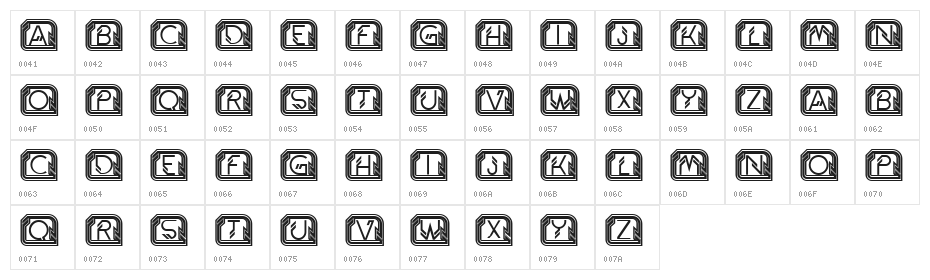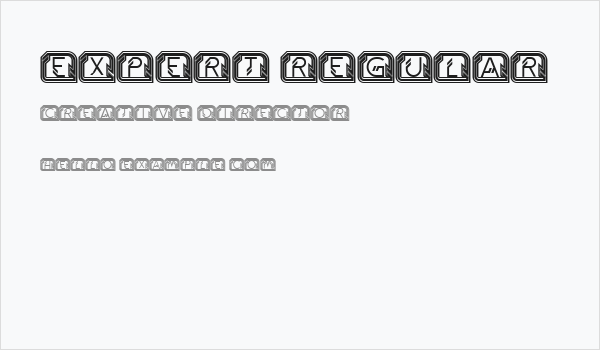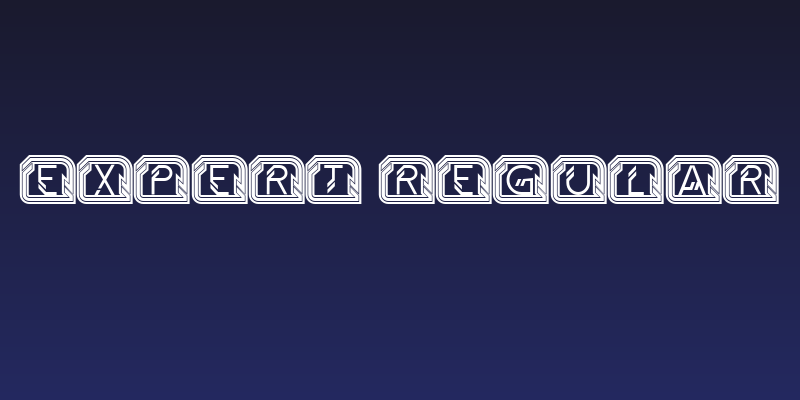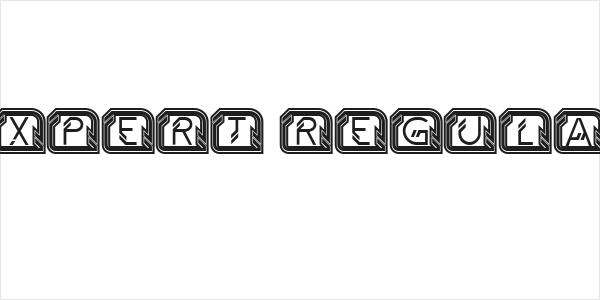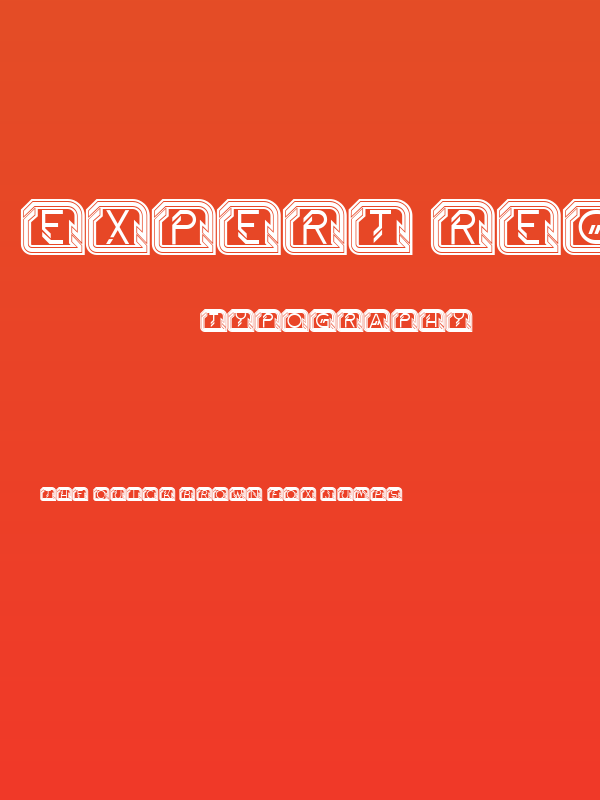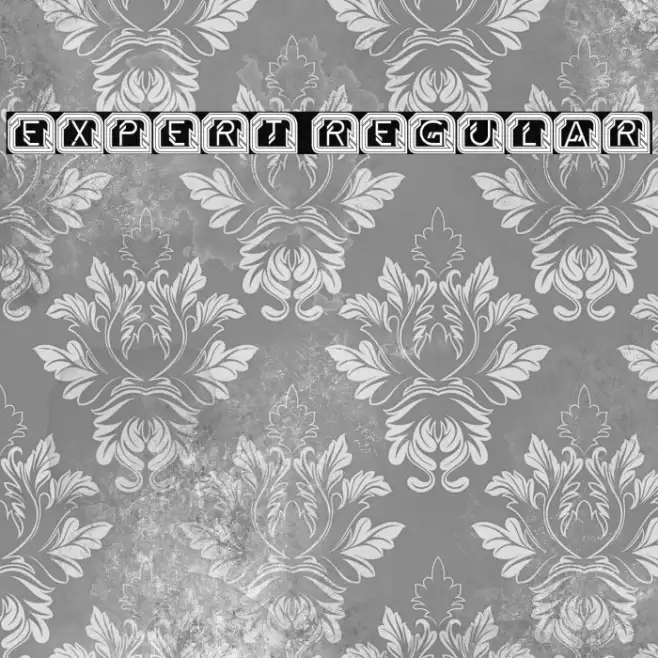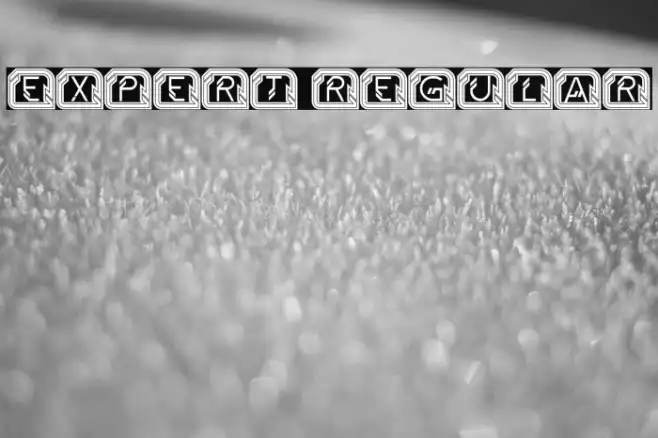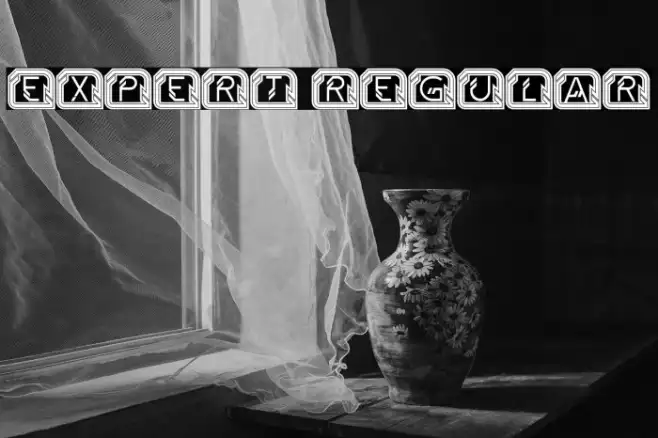
Expert Regular Font
Expert Regular Description
This font features a bold, decorative style with a unique three-dimensional effect. Each character is enclosed within a box-like structure, giving it a distinct, embossed appearance. The letters are uppercase and exhibit a strong geometric form, with sharp angles and clean lines. The design is reminiscent of vintage signage or retro gaming aesthetics, making it stand out with its bold presence. The font's intricate detailing and shadowing create a sense of depth, enhancing its visual impact.
| Proposed Projects | Ideal for retro-themed posters, video game titles, vintage signage, or any project requiring a bold, eye-catching display font. |